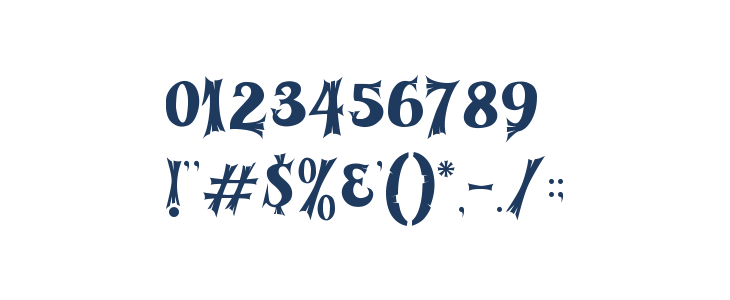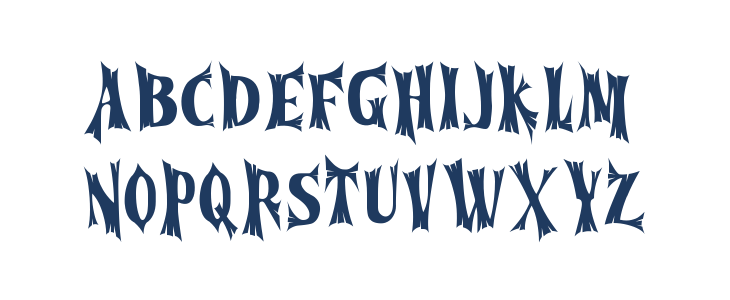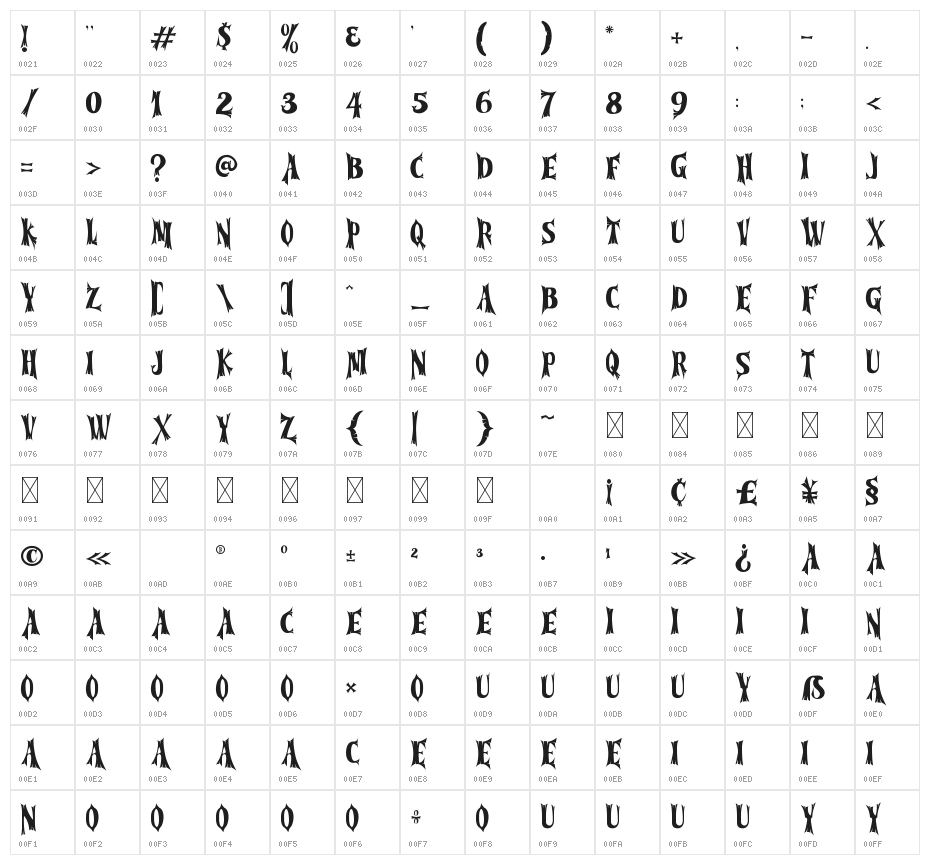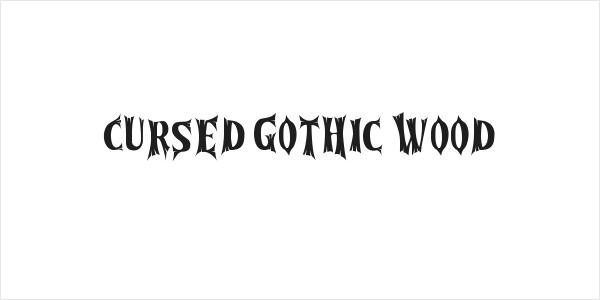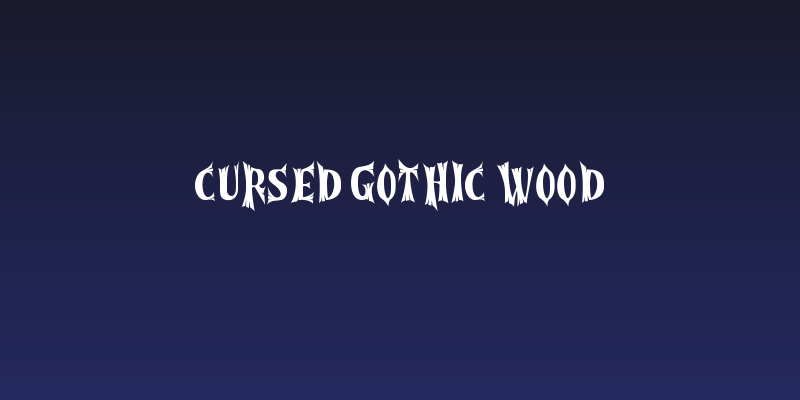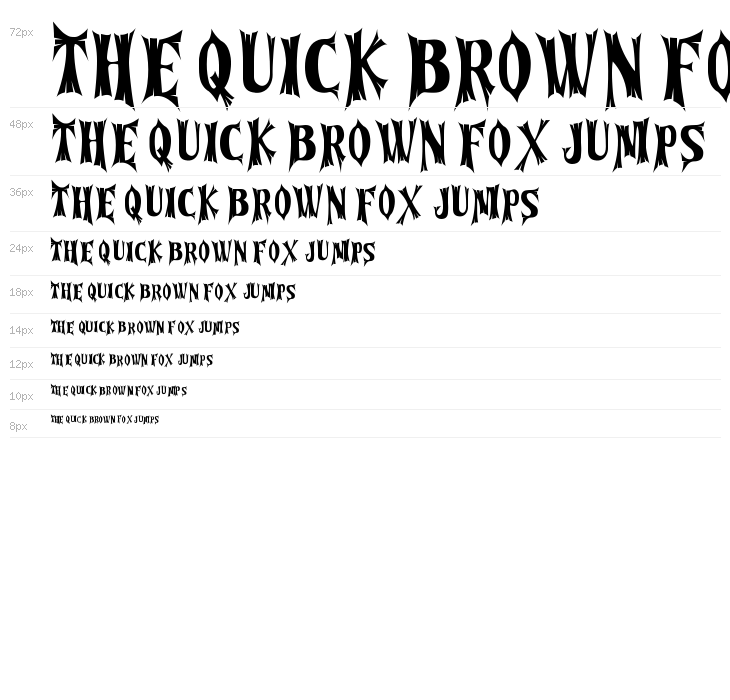
Cursed Gothic Wood Font
Cursed Gothic Wood Description
A highly decorative display font with jagged, woodcut-inspired edges and exaggerated serifs, giving each character a spiky, gothic appearance. The letterforms are bold and dramatic, with irregular contours and a sense of movement, making the font visually striking and attention-grabbing.
| Overall Style | Decorative, Gothic, Horror, Woodcut |
| Use Case | Headlines, Posters, Logos, Themed Graphics |
| Proposed Projects | Halloween posters, horror movie titles, haunted house signage, gothic event invitations, themed merchandise, fantasy book covers. |